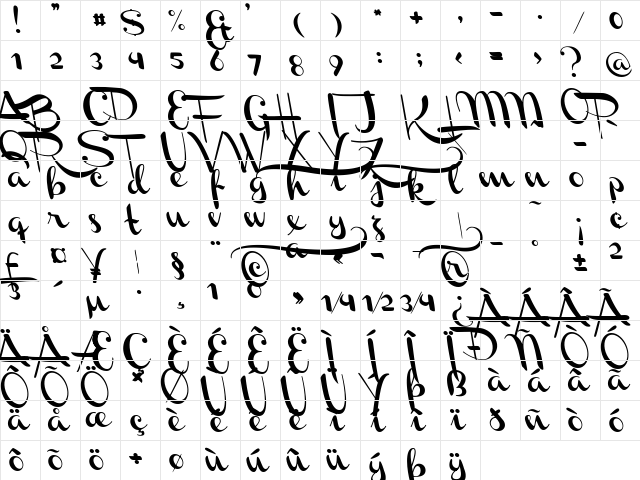
Channel Left-Slanted Regular
Foundry: M￿ Greb￿
Designer: M￿ Greb￿
Design Context for Channel Left-Slanted
Channel Left-Slanted is a composed and adaptable typeface that performs quietly and consistently across a wide range of design contexts. The slanted form adds forward momentum and visual energy.
Pro Tip: Use Channel Left-Slanted for emphasis, pull quotes, and subheadings where its slanted energy can add rhythm to the layout.